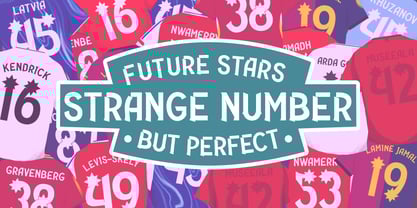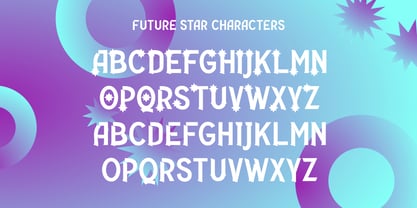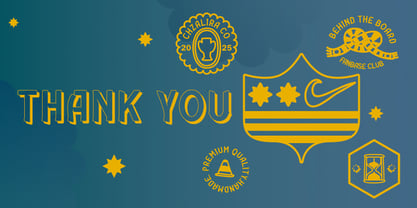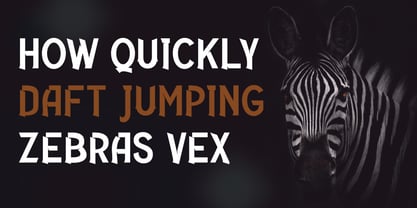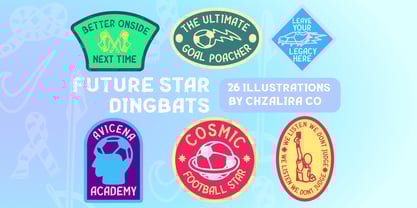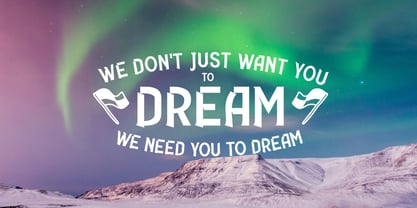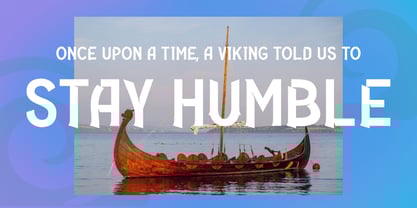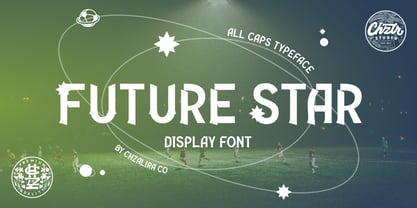
Future Star
by Chzalira Co
The Future Star Font Family was designed by Luqman Rokhim and published by Chzalira Co. Future Star contains 7 styles and family package options. More about this family
Future Star font family comes with fresh design and inspired by future world class footballer. This font family suits for sport logo, jersey nameset, branding, or event. This font comes with dingbats perfect for logotype. Future star font give you clean and modern design.